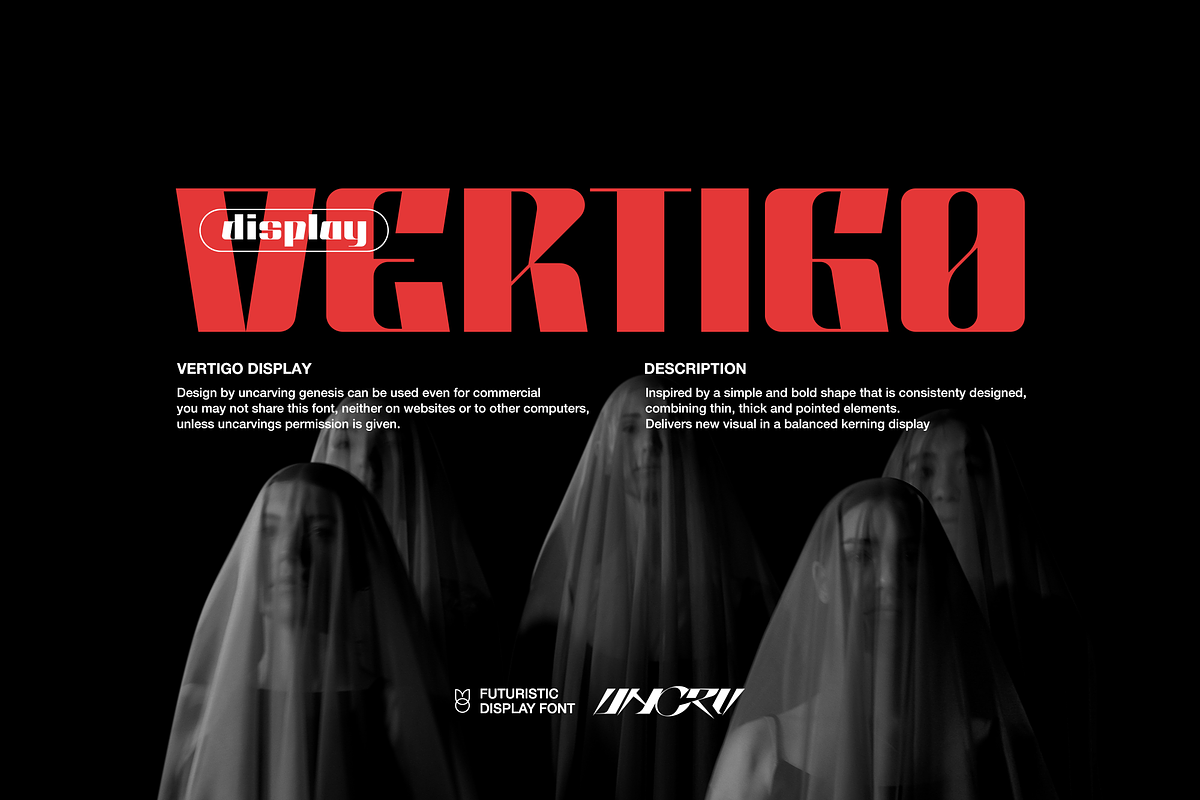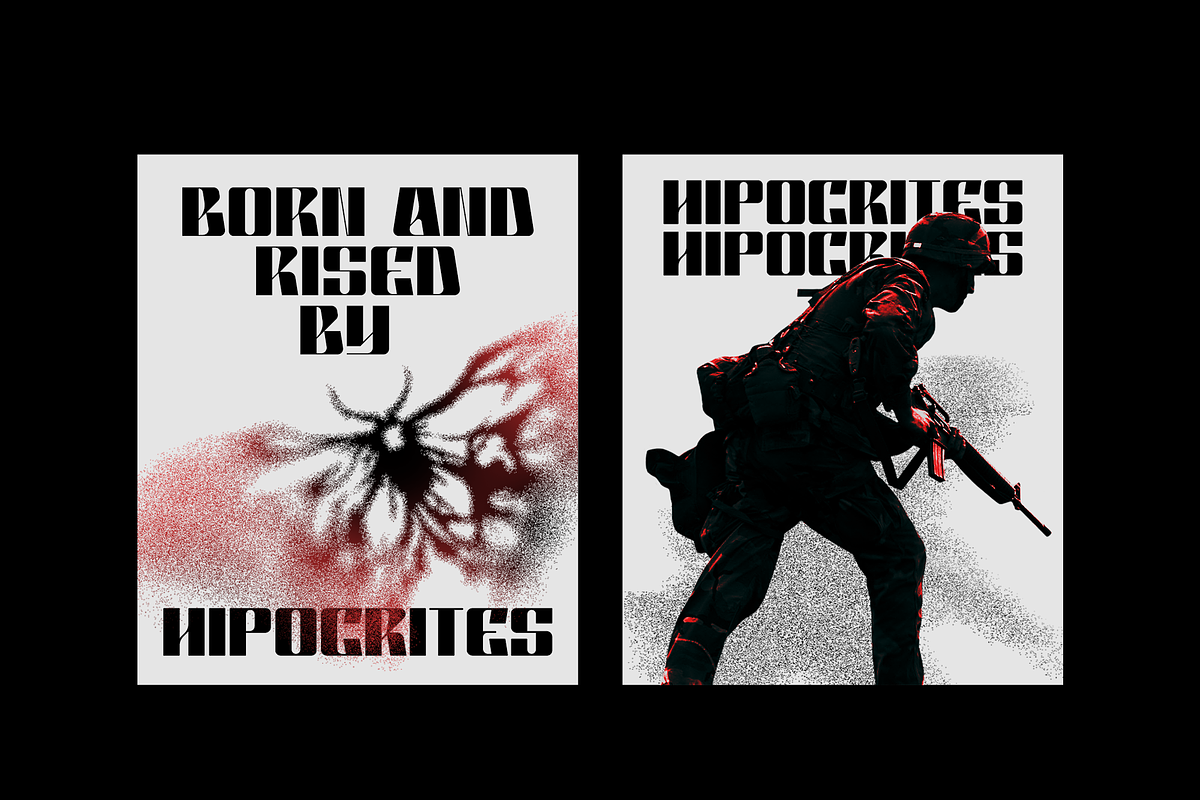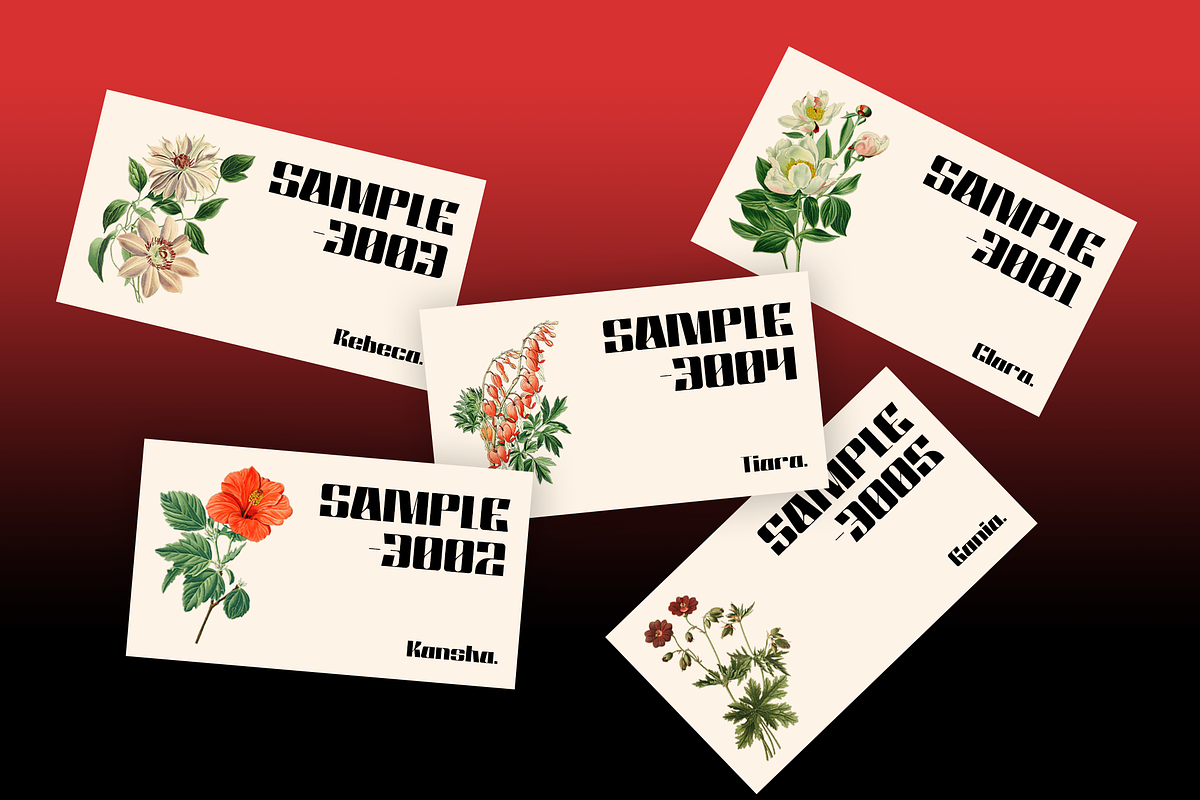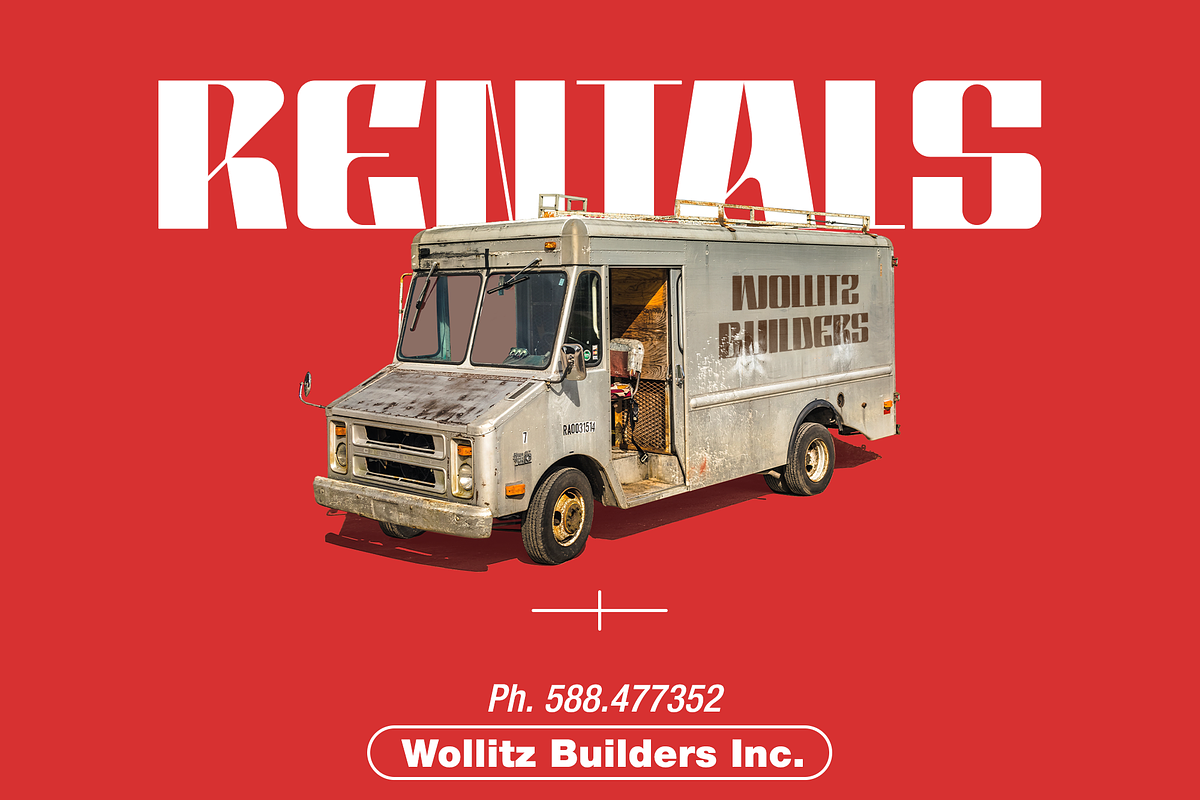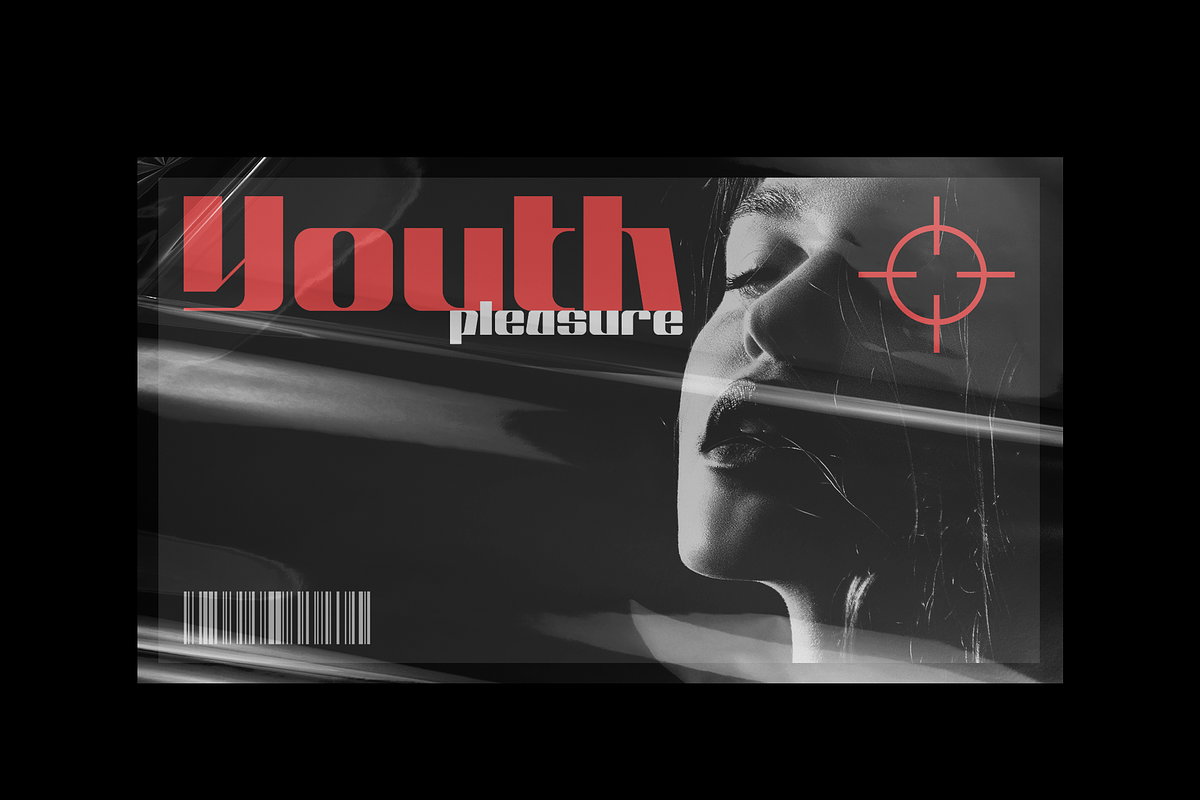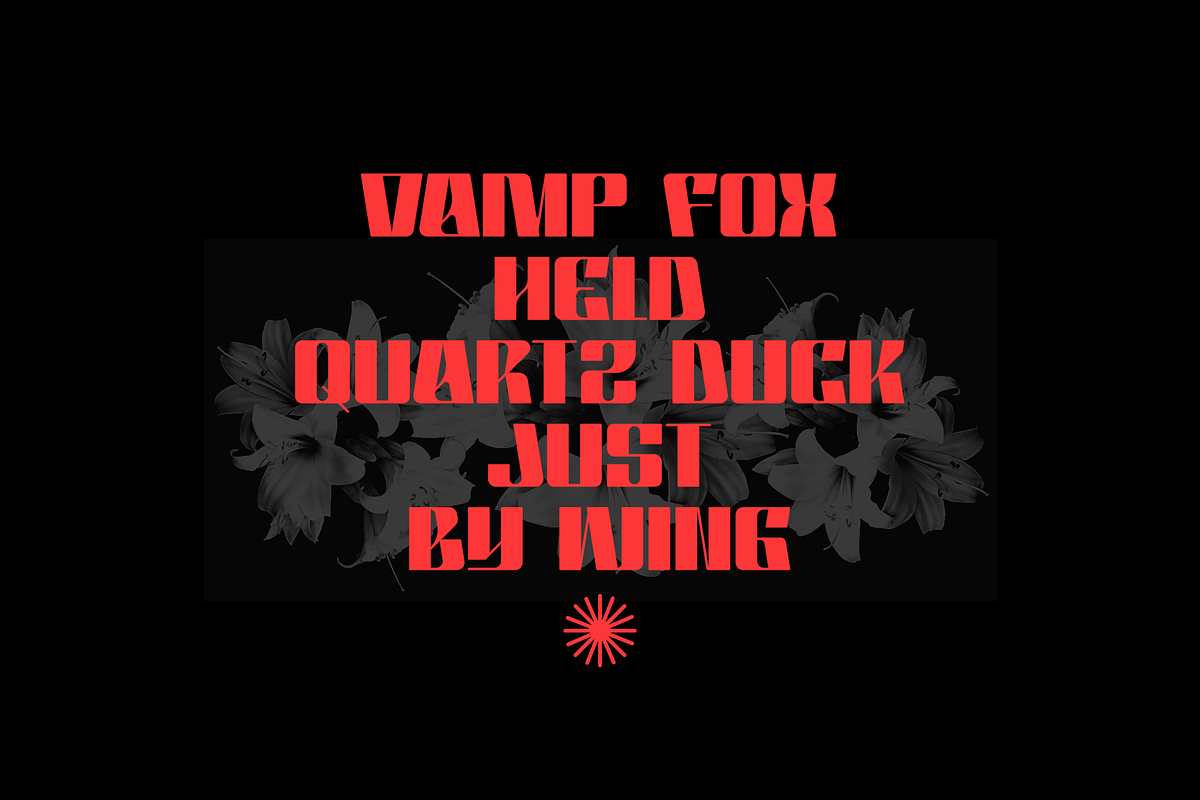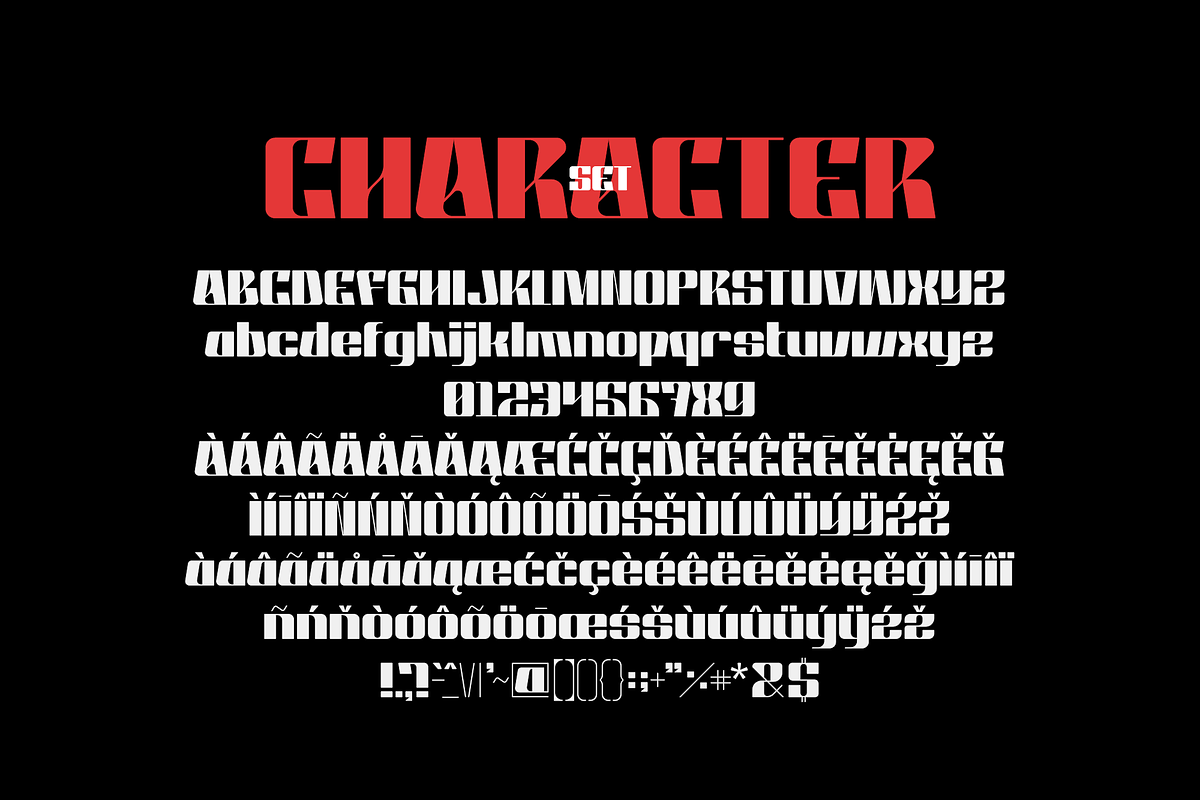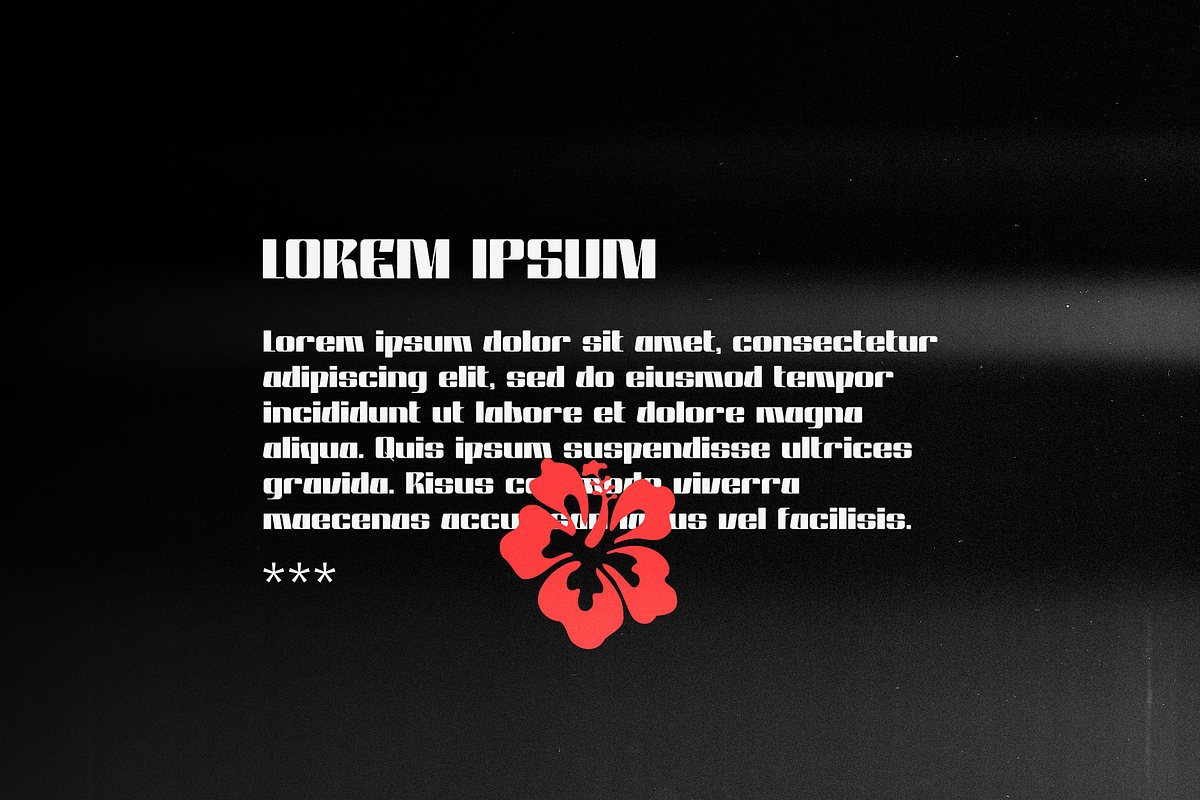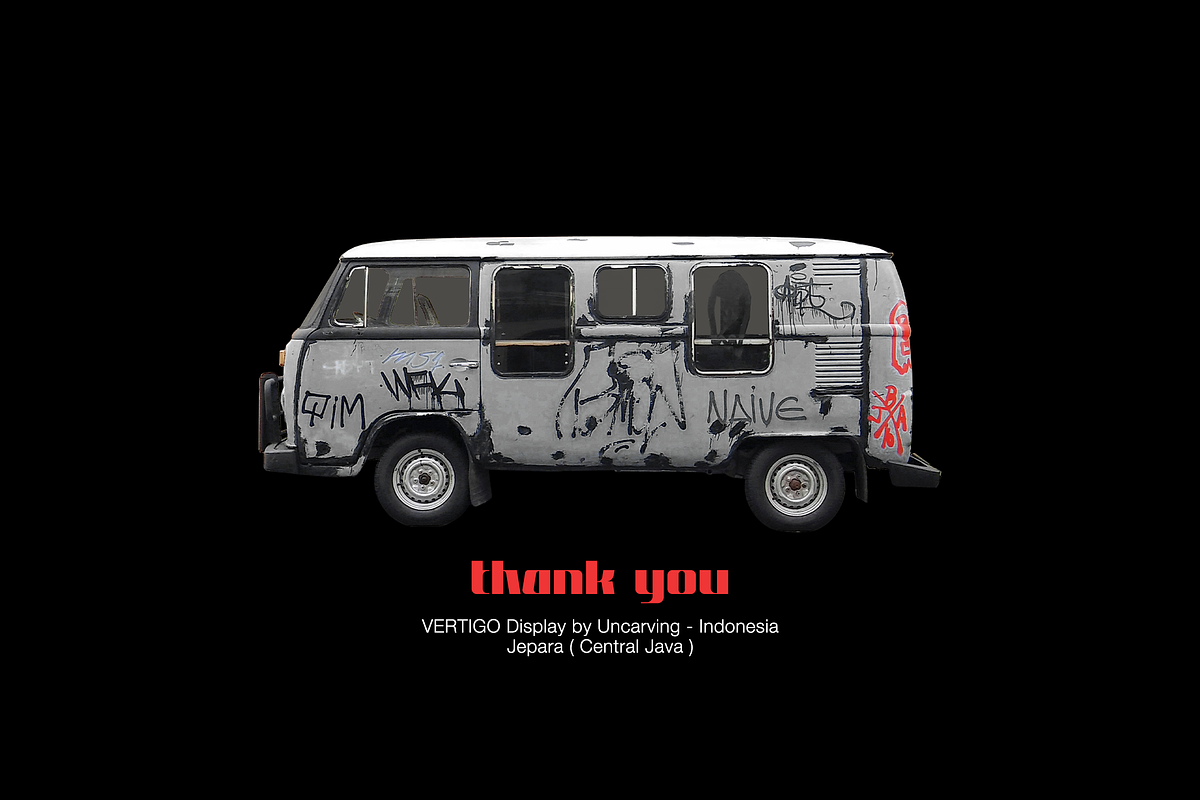
Vertigo - Display Font
"VERTIGO" is a font designed by uncarving Inspired by a simple and bold shape that is consistenty designed, combining thin, thick and pointed elements. Delivers new visual in a balanced kerning display Genesis can be used even for commercial you may not share this font, neither on websites or to other computers, unless uncarvings permission is given.